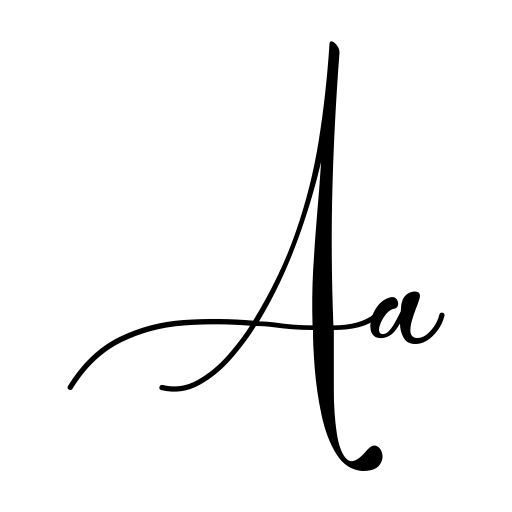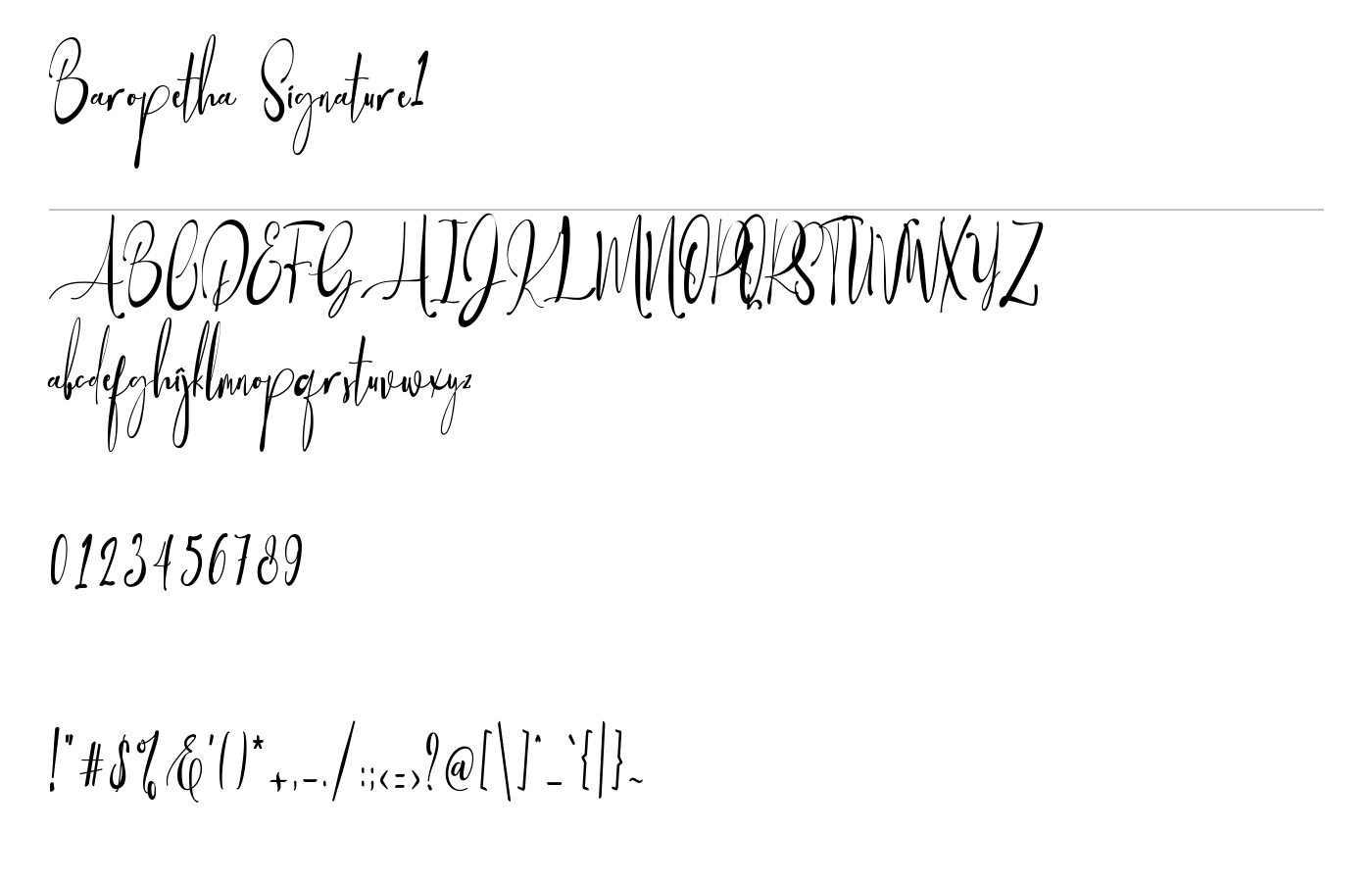
Baropetha is a delicate, handwritten script font with elegant, flowing strokes that mimic natural calligraphy. It features a slender, tall structure with graceful curves and varied line thickness, giving it a refined, sophisticated feel ideal for personal branding, wedding invitations, and luxury packaging. This font’s airy and stylish character makes it perfect for designs seeking a modern yet intimate touch.
Baropetha Font
About Baropetha Font
| Font family | Baropetha Font |
| Designer | Aldedesign 2019 |